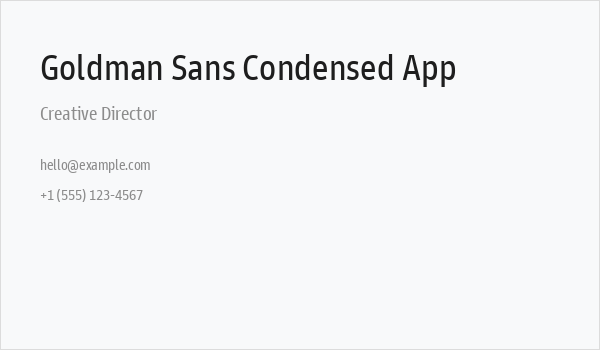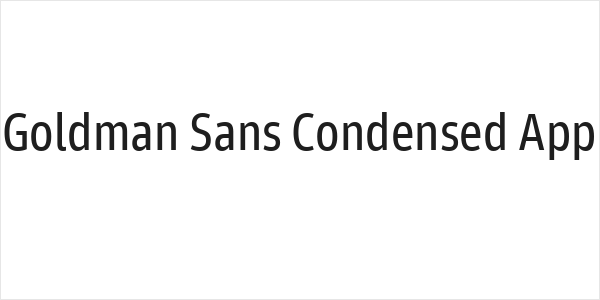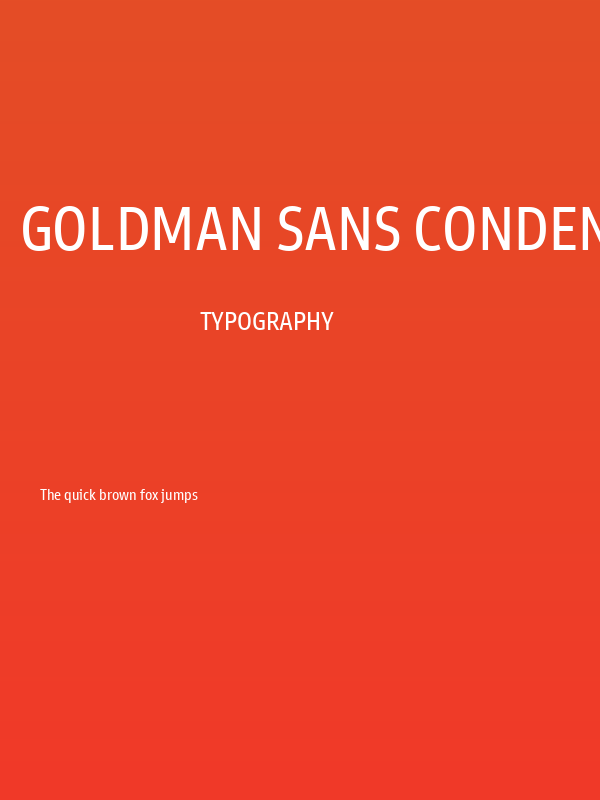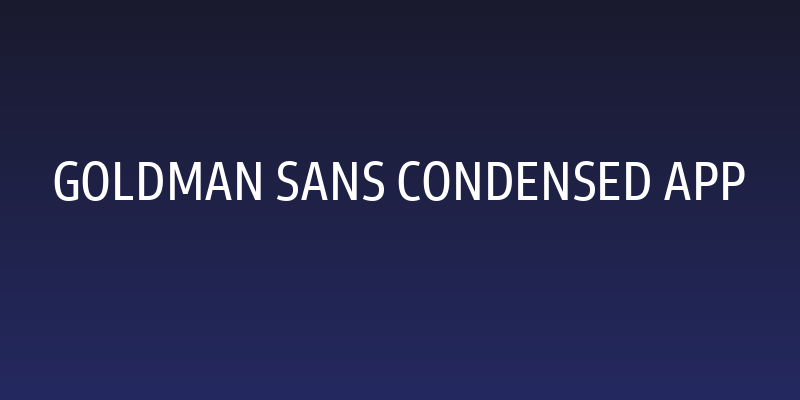
Goldman Sans Condensed App Font
Goldman Sans Condensed App Description
This typeface features a clean and modern sans-serif design with a condensed width, making it ideal for maximizing space while maintaining readability. The characters are uniformly structured with a consistent stroke width, providing a sleek and professional appearance. The uppercase and lowercase letters are well-balanced, and the numerals are clear and distinct. Special characters are included, offering versatility for various applications. The overall design is straightforward, with no decorative elements, emphasizing functionality and clarity.
| Proposed Projects | Ideal for use in digital interfaces, corporate branding, advertising, and editorial design where space is limited. |